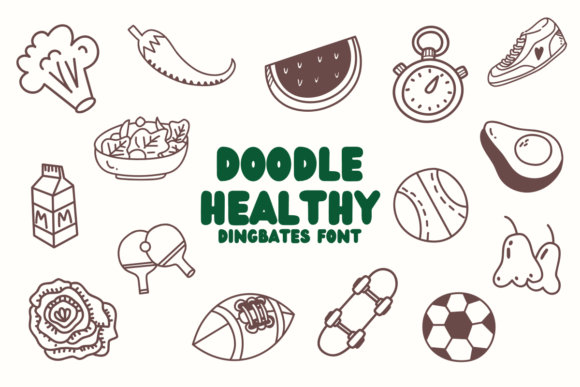
The Power of Visual Cues in Design
Have you ever been brainstorming a new design concept, only to find yourself stuck on a single element? For me, it’s often the typography that needs a little extra oomph to get the creative juices flowing. That’s where fonts like Doodle Healthy Font come in – a playful and engaging choice that adds an extra layer of depth to your design.
As a designer, you know how much a well-chosen font can elevate a message or theme. And Doodle Healthy Font is no exception. This fun and quirky font is packed with cute illustrations of fruits, veggies, exercise equipment, and other health-related icons, making it the perfect choice for projects focused on wellness and self-care. By incorporating the Doodle Healthy Font into your designs, you can add a touch of personality and whimsy that’s sure to resonate with your audience.
Doodle Healthy Font Key Features
• Unique Characteristics: The Doodle Healthy Font features a playful, handwritten style with a focus on health and wellness, making it perfect for branding and marketing materials related to the healthcare industry.
Doodle Healthy Font Review
As a designer, I was excited to dive into the world of “Doodle Healthy Font”. At first glance, the font’s playful and hand-drawn aesthetic ✨ caught my attention. It’s perfect for adding a touch of whimsy to health and wellness-related projects.
• The font’s friendly and approachable nature makes it suitable for a wide range of applications, from posters to social media graphics.
• The variety of weights and styles available ✨ allows for a good level of customization and flexibility.
• The font is well-suited for use in digital design, with clear and readable letterforms.
• The font’s playful nature may not be suitable for more formal or professional projects, where a more serious tone is required ⚠️.
• The font may not be as legible in smaller font sizes, which could be a concern for applications where text needs to be concise.
Overall, “Doodle Healthy Font” is a great addition to any designer’s toolkit. While it may have some limitations, its playful and approachable nature makes it a versatile and effective choice for a wide range of projects.
Use the Doodle Healthy Font to add a playful and whimsical touch to your designs.
Pair the font with bold, bright colors to create a fun and energetic vibe.
Experiment with different font sizes and styles to add visual interest to your text.
The Doodle Healthy Font is perfect for:
Children’s book illustrations and designs.
Food and beverage branding.
Health and wellness marketing materials.
Alternatives to Doodle Healthy Font
Great Vibes is a modern, handwritten font perfect for adding a personal touch to your designs. It is ideal for use in social media graphics, advertising, and packaging. Great Vibes has a similar feel to Doodle Healthy Font but is more elegant and sophisticated.
Alex Brush is a beautiful, elegant script font that is perfect for creating a sense of luxury and sophistication. It is ideal for use in high-end branding, advertising, and editorial design. Alex Brush has a more refined and polished feel compared to Doodle Healthy Font, making it suitable for more formal designs.
Cowboy Casual Font
Cowboy Casual is a fun, handwritten font that is perfect for adding a playful touch to your designs. It is ideal for use in outdoor and lifestyle branding, advertising, and social media graphics. Cowboy Casual has a more rugged and casual feel compared to Doodle Healthy Font, making it suitable for more relaxed designs.